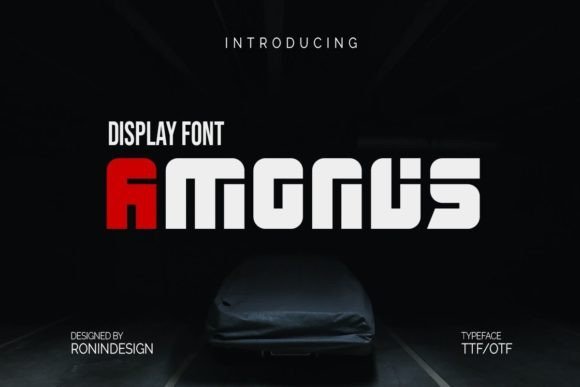
Adding a Touch of Unique Sophistication to Your Designs
Have you ever found yourself stuck in a creative rut, searching for that one font that perfectly captures the essence of your vision? We’ve all been there. It’s that moment when everything falls into place, and your design comes alive with a single, bold stroke of genius.
Enter the Amonus Font, a modern and simple display font designed to bring a unique touch to your logos, labels, posters, and any other creative project that demands attention. With its clean lines and elegant flair, Amonus Font is the perfect addition to any designer’s library. Whether you’re a seasoned pro or just starting out, this versatile font is sure to become your go-to choice for adding a touch of sophistication to your designs.
Amonus Font Key Features
- Unique Characteristics: Amonus Font features a unique blend of modern and vintage elements, with distinctive letterforms and a wide range of language support, making it suitable for various design applications.
- Weight and Style Options: Amonus Font offers a range of weights and styles, from light to bold, and from serif to sans-serif, allowing designers to create visually appealing typography for various contexts.
Amonus Font Review
Amonus Font is an interesting addition to any design project, bringing a unique touch with its elegant and futuristic vibe. Here’s what I think works well: ✨
- Elegant and futuristic feel that can elevate any design
- Great for creating a sense of luxury and sophistication
- Well-suited for modern and minimalist designs
- May be too bold for more conservative or traditional designs
- Lack of versatility in font sizes and weights may limit its use in complex compositions
- May not be the best choice for body text, as it can be quite eye-catching and overwhelming
Overall, I think Amonus Font is a great choice for designers looking to add a touch of modernity and sophistication to their projects. While it may not be suitable for every design, it’s definitely worth considering for the right project.
For best results, use Amonus Font in titles, headings, and other prominent text elements. It’s also suitable for creating modern and minimalist designs.